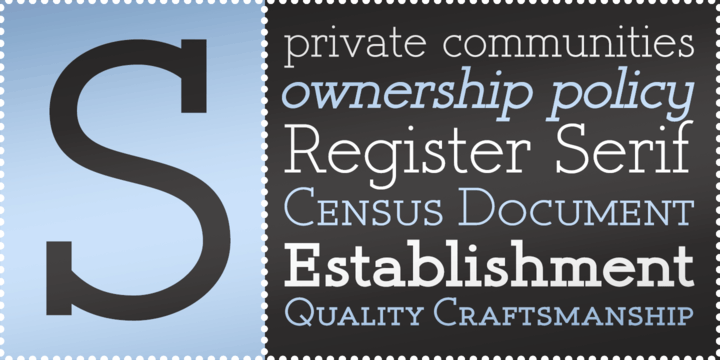
Register Serif BTN
About Register Serif BTN
Register Serif is a typestyle inspired by the clean, generic handwriting specimens from an old Speedball booklet modified for more friendliness and finesse. This typestyle offers a range of weights and also comes with a series of smallcaps versions allowing…